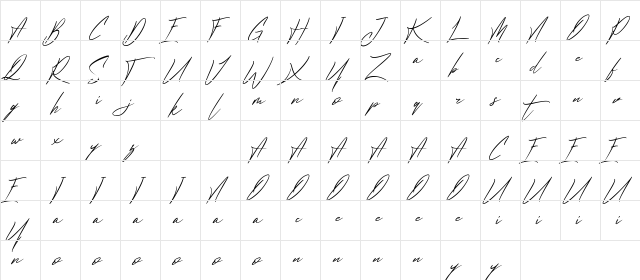
Jillfester Demo Regular Font Preview
Jillfester Demo Regular
Jillfester Demo Regular Font Details
| Foundry | Edric Studio |
| Designer | Fajar Saepul Rohman |
Design Context for Jillfester Demo Typeface
Jillfester Demo is a composed and adaptable typeface that performs quietly and consistently across a wide range of design contexts.